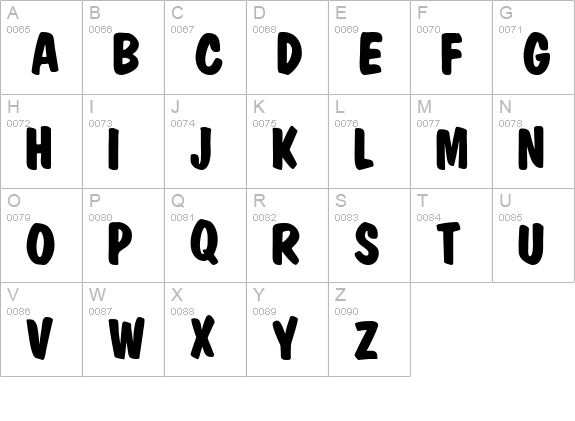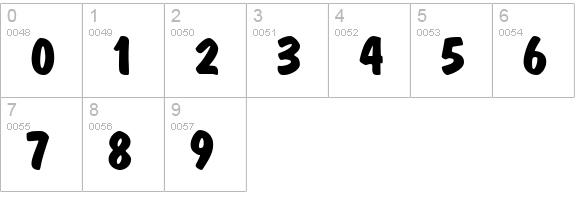
Market Bold is a strong, high-contrast variant in the Market typeface family \xE2\x80\x94 well suited to headlines, attention-grabbing titles, and strong calls-to-action.
Market Bold is a striking and captivating font that commands attention with its bold and powerful presence. Designed with a modern and edgy aesthetic, this font exudes confidence and professionalism. Its strong and thick letterforms make a bold statement, perfect for headlines, titles, and logos that need to leave a lasting impression. What sets Market Bold apart is not only its stunning design, but also its accessibility. It is freely available to download at FontsMarket.com, making it easily accessible to anyone in need of a dynamic and impactful font. Whether you are a graphic designer looking to create eye-catching designs, a business owner in search of a font that stands out, or a creative individual wanting to add a touch of boldness to your projects, Market Bold is the perfect choice. With its versatility and versatility, Market Bold can be used in a variety of settings and applications. From print materials such as brochures, posters, and advertisements, to digital platforms like websites, social media graphics, and presentations, this font will enhance your visual communication and leave a lasting impression on your audience. The legibility of Market Bold is exceptional, thanks to its well-balanced proportions and thoughtful spacing. Each letter is carefully crafted to ensure clarity and readability, even at smaller sizes. This attention to detail makes Market Bold a reliable choice for any project, ensuring that your message is effectively conveyed to your target audience. In addition to its stunning design and accessibility, Market Bold also offers a wide range of characters and glyphs, allowing you to add unique and creative touches to your designs. Whether you need special ligatures, alternate letterforms, or decorative elements, this font has you covered, providing endless possibilities for customization and creativity. In conclusion, Market Bold is a powerful and bold font that demands attention and leaves a lasting impression. Its striking design, accessibility, and versatility make it the perfect choice for designers, business owners, and creatives alike. With its exceptional legibility and wide range of characters, Market Bold is a font that will elevate your designs and make them truly stand out. So why wait? Download Market Bold for free at FontsMarket.com and unleash your creativity today.